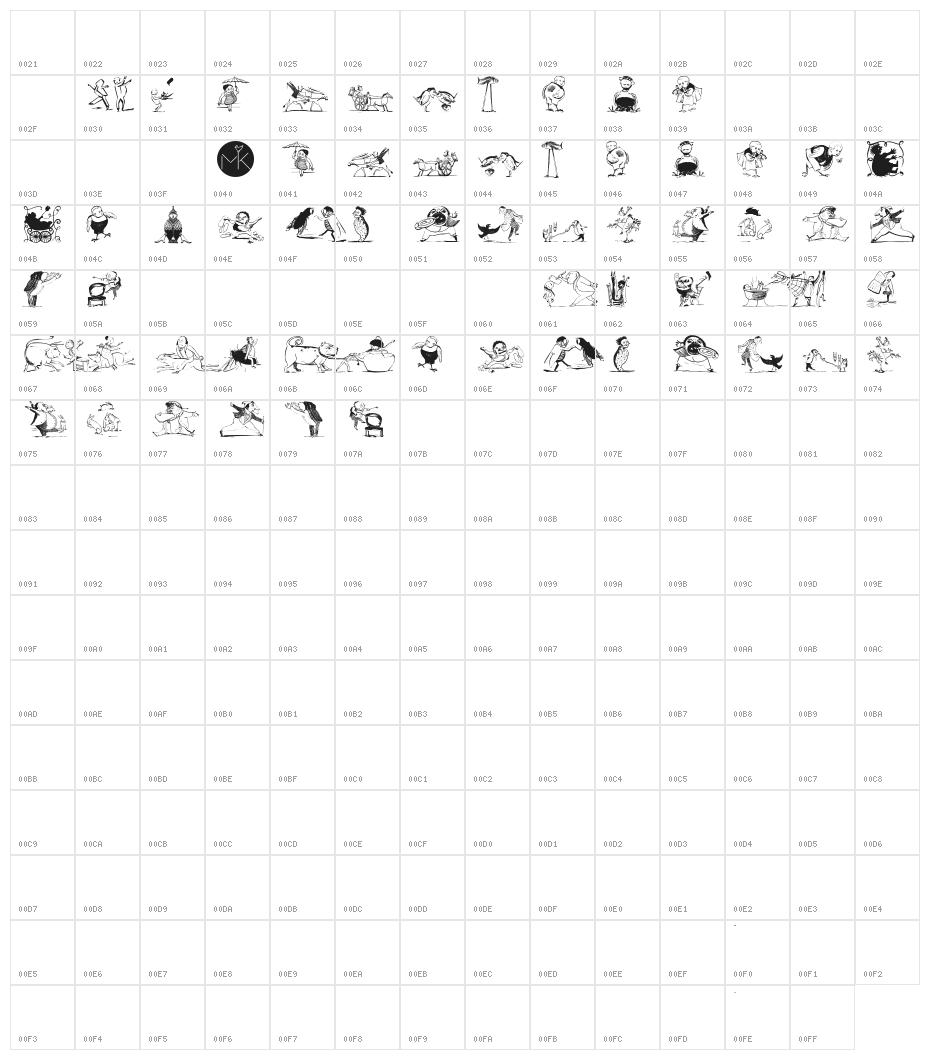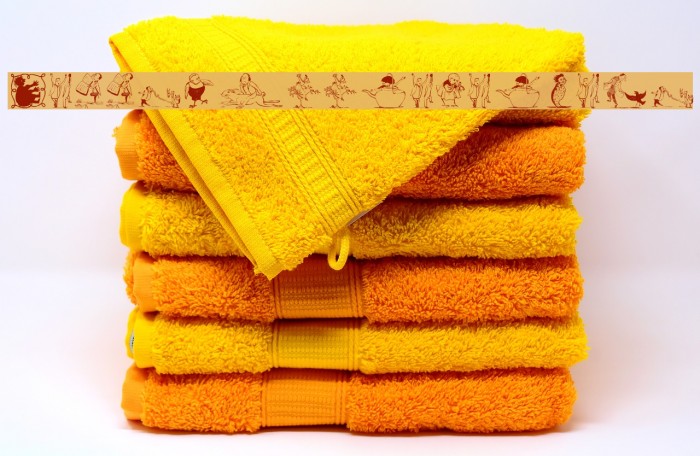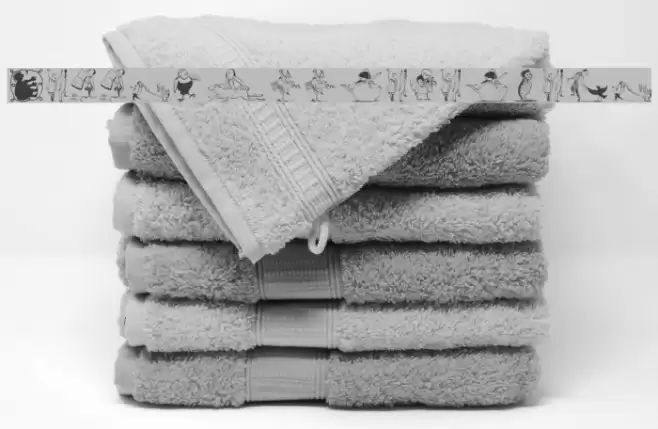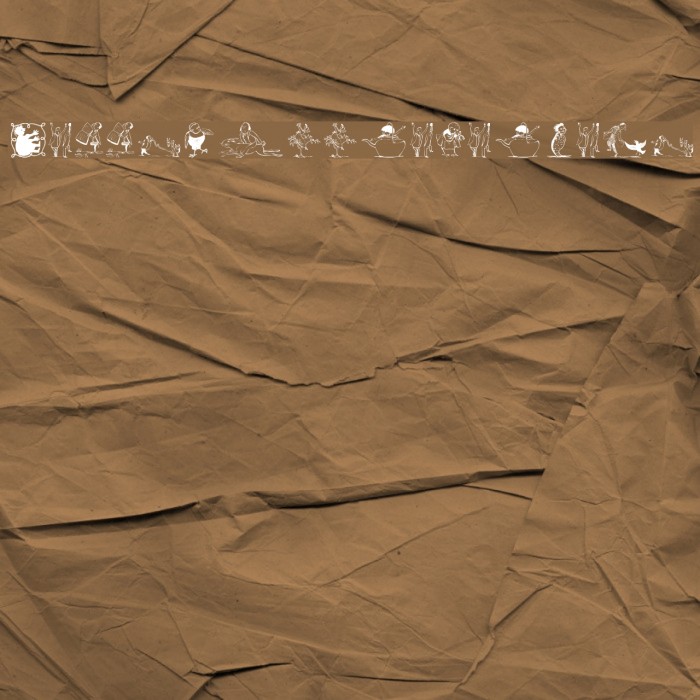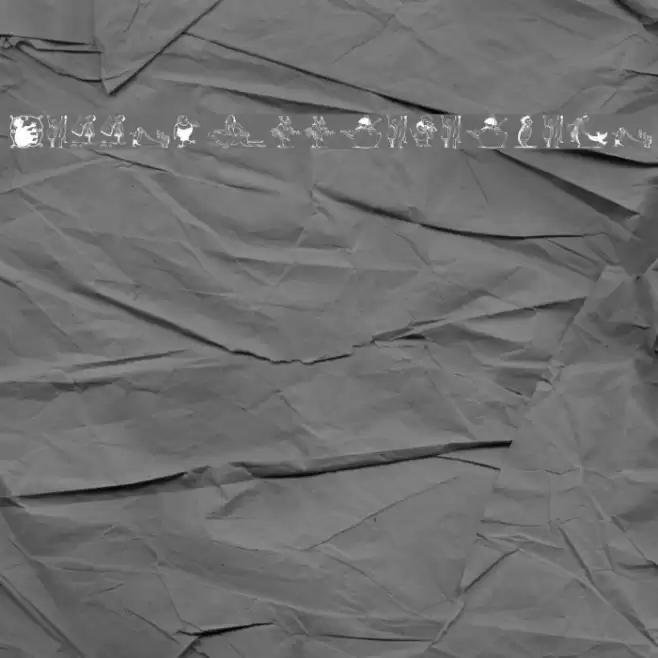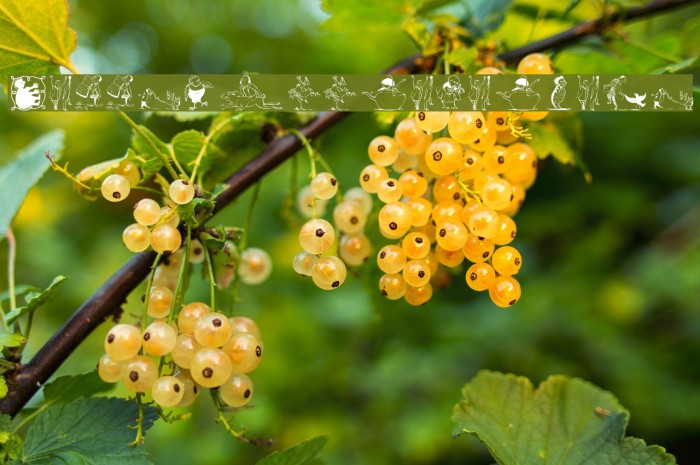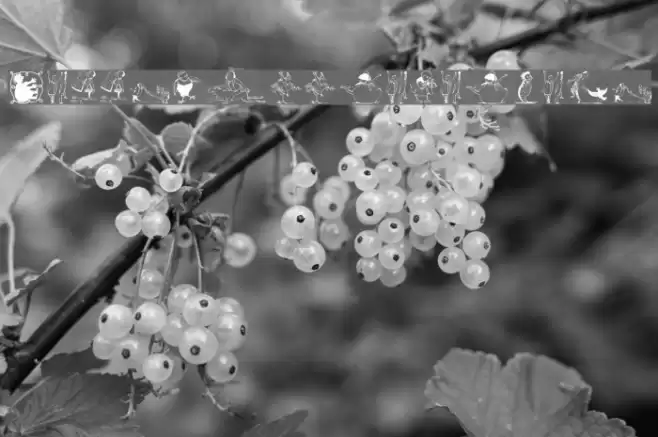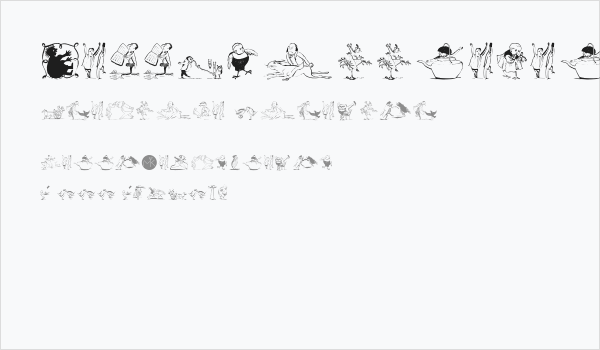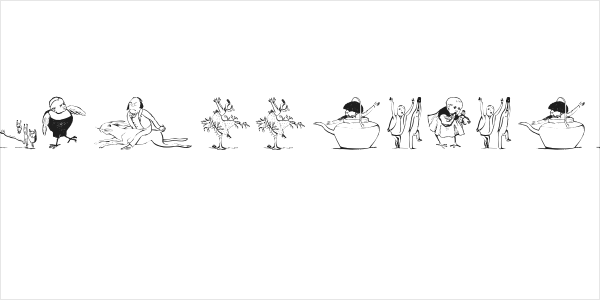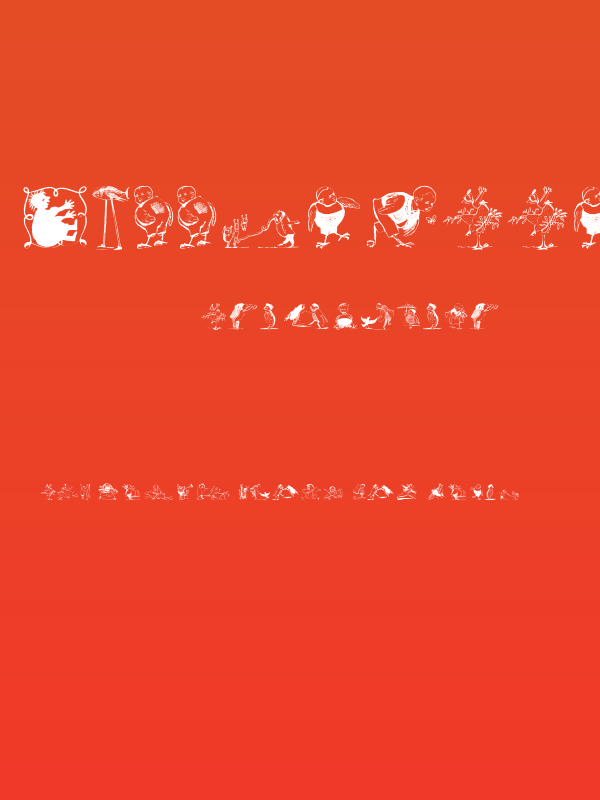
JeffsLittleHelpers Font
JeffsLittleHelpers Description
| Overall Style | Whimsical, Playful, Illustrative |
| Use Case | Decorative elements, Thematic dividers, Visual storytelling |
| Proposed Projects | Children's books, playful invitations, greeting cards, educational materials, decorative headings. |